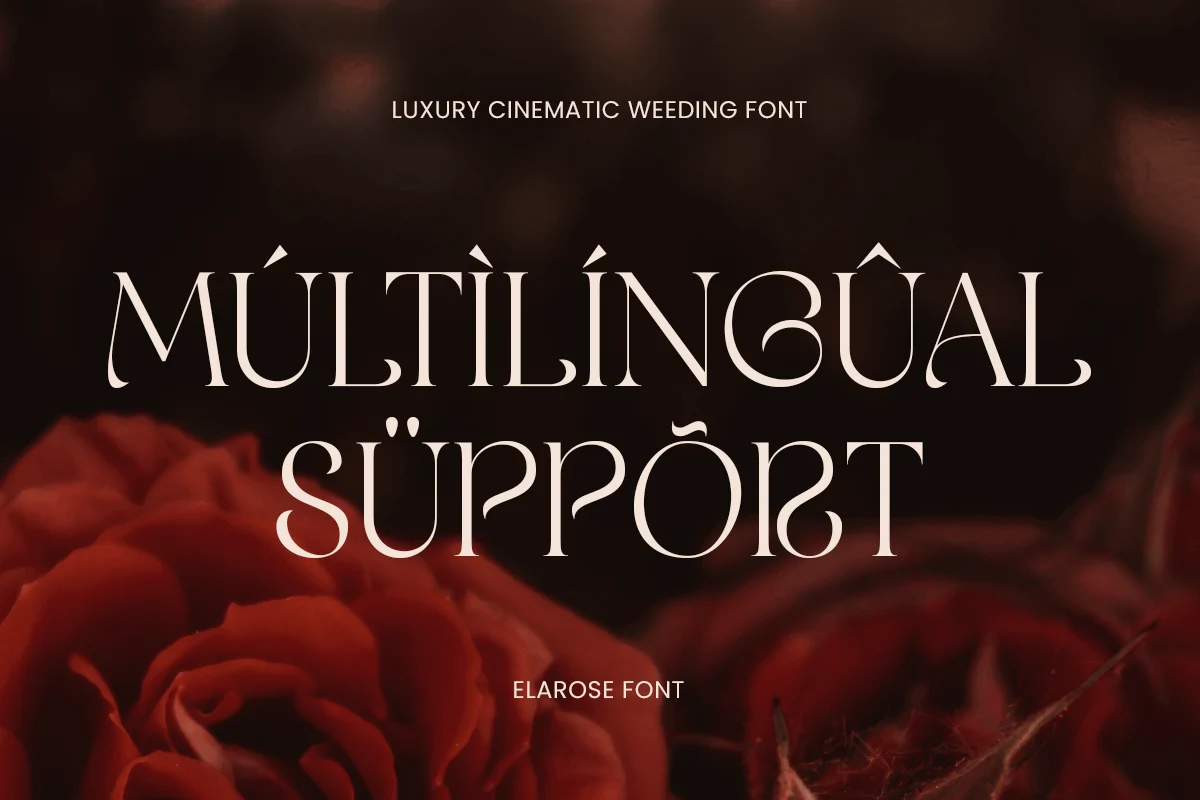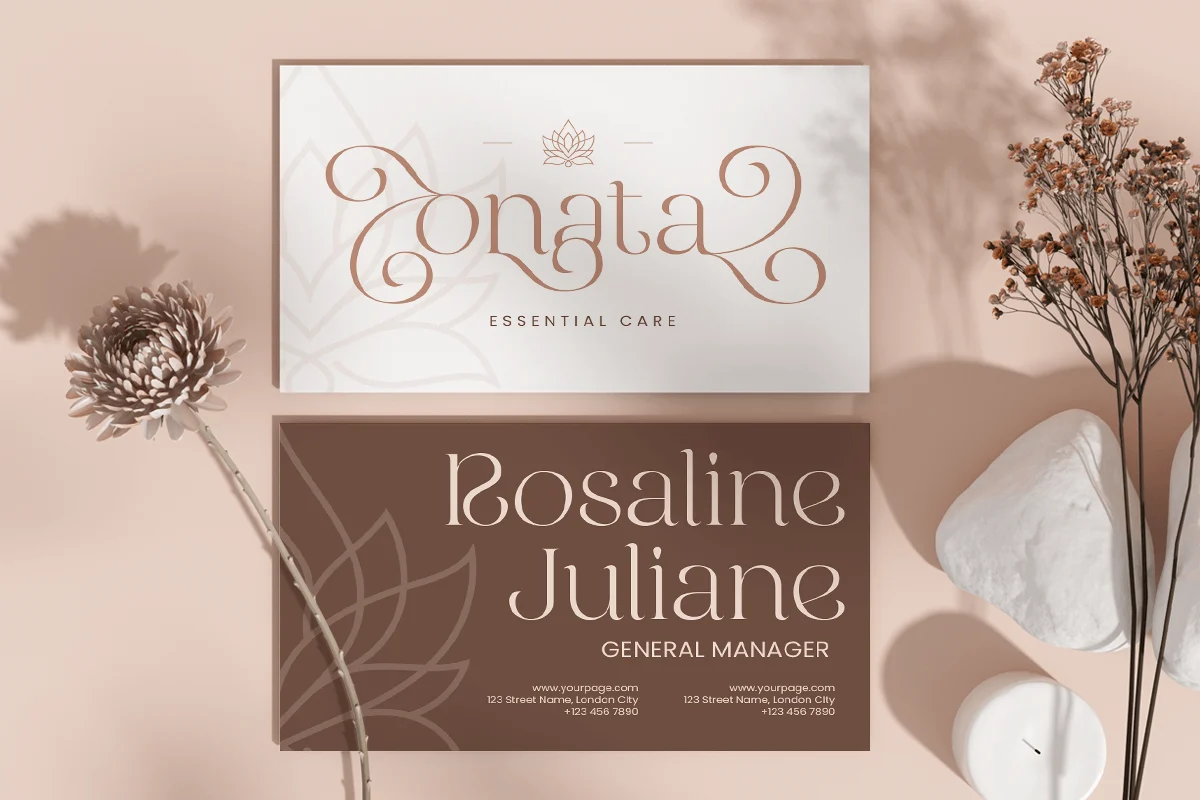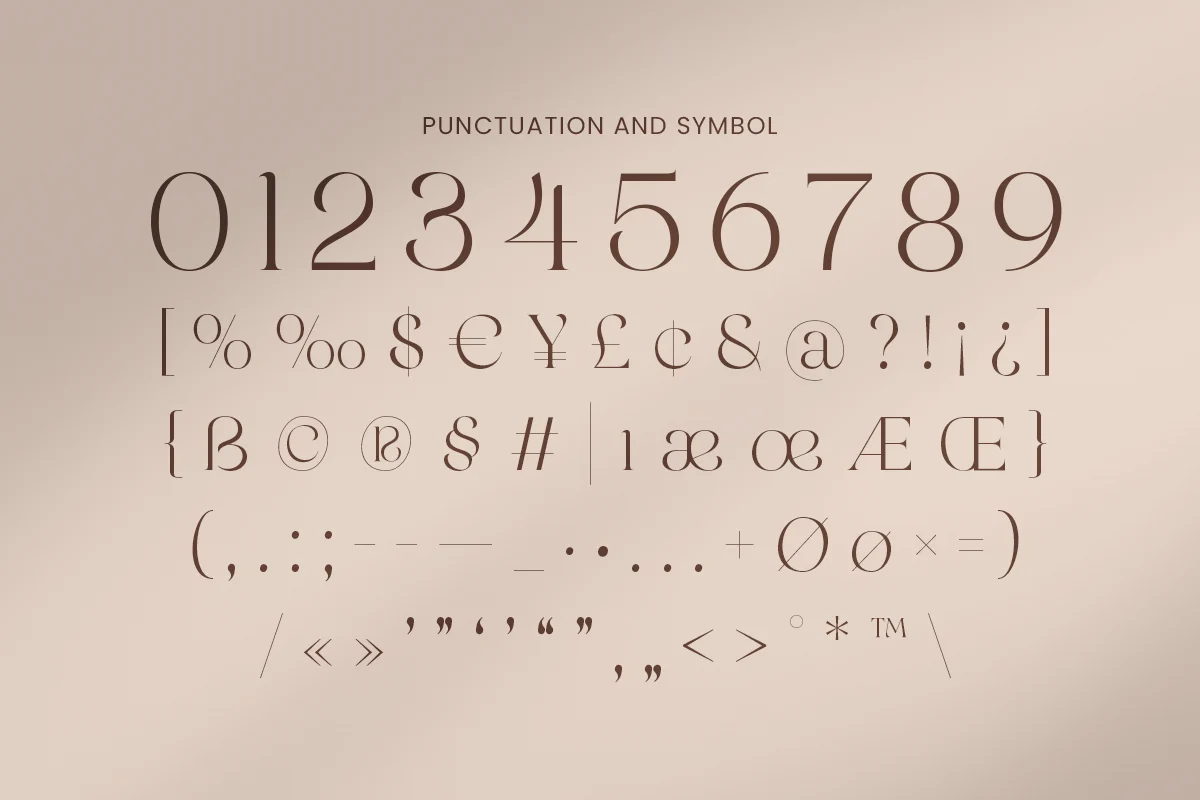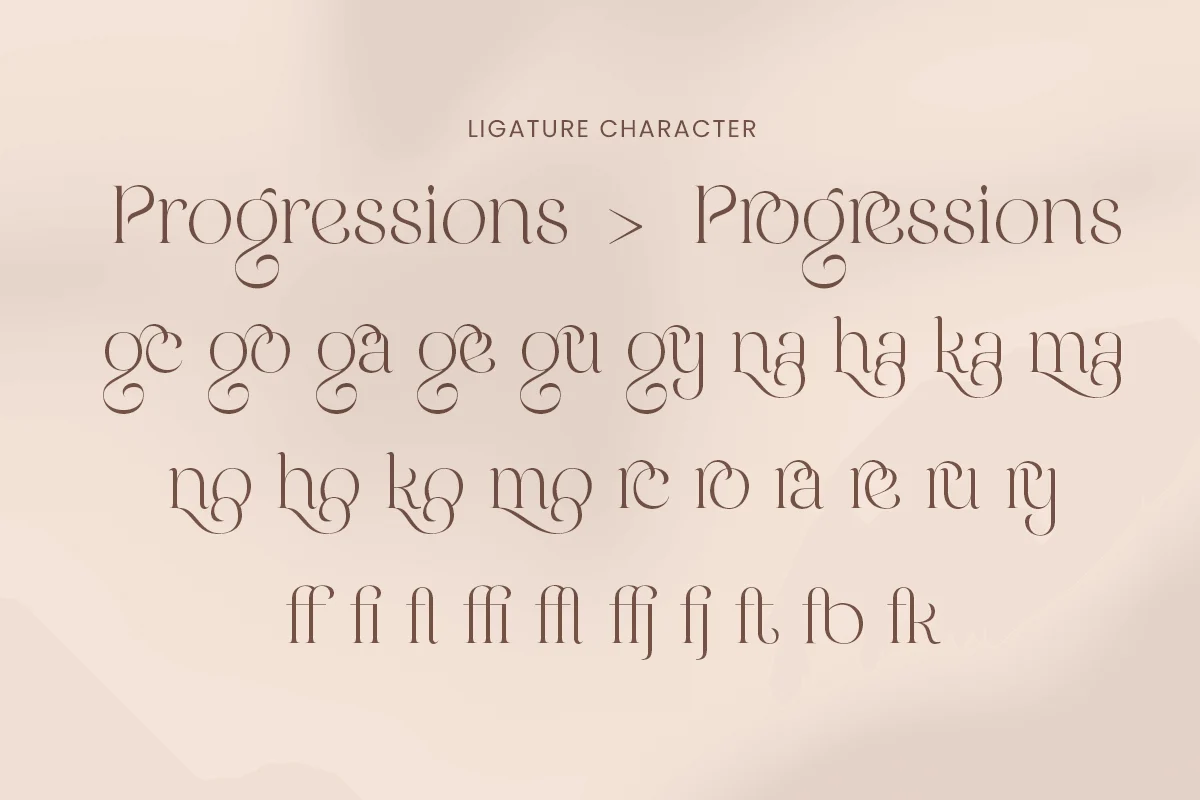
Elarose – Classy Cinematic Serif Font
Elarose is a classy cinematic serif font crafted to bring refined elegance and dramatic sophistication to any visual identity. Designed with high contrast, graceful curves, and a polished editorial aesthetic, this typeface is ideal for film titles, fashion branding, magazine layouts, and premium packaging.
Inspired by timeless cinematic typography, Elarose blends modern minimalism with classic luxury. Its sharp serifs and smooth flow elevate logos, headlines, invitations, and advertising, making every composition feel exclusive, expressive, and beautifully composed.
Whether you're building a high-end brand identity or designing visually rich editorial spreads, Elarose delivers stunning readability, character, and impact across both print and digital media.
Elarose – Classy Cinematic Serif Font Features
- Elegant high-contrast serif with cinematic flair
- Perfect for film titles, branding, editorials, and luxury packaging
- Refined curves and sharp serifs for a sophisticated appearance
- Great for fashion, beauty, lifestyle, and creative industries
- OpenType features for enhanced typographic creativity
Bring cinematic elegance to your visual identity with Elarose – the ultimate luxury serif font for timeless, refined, and expressive design. ✨🎬